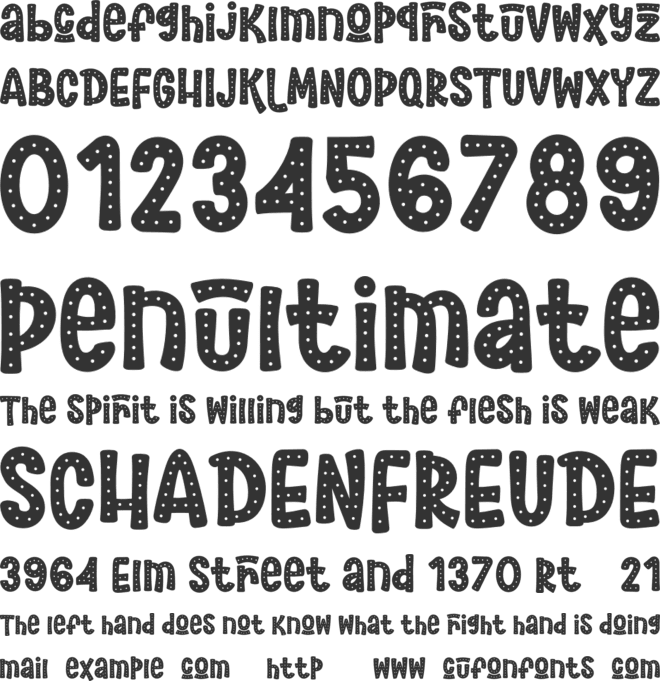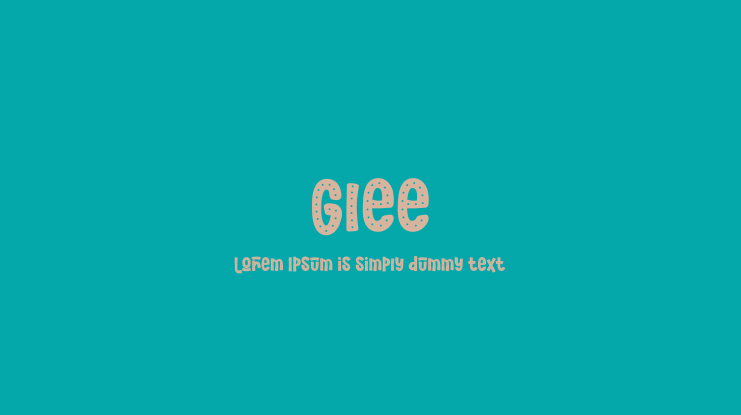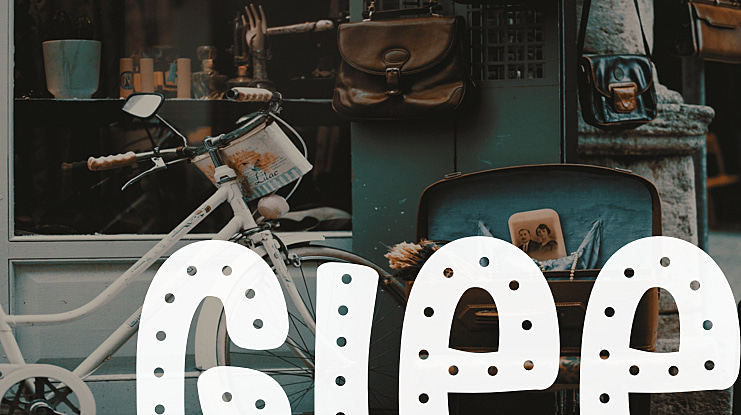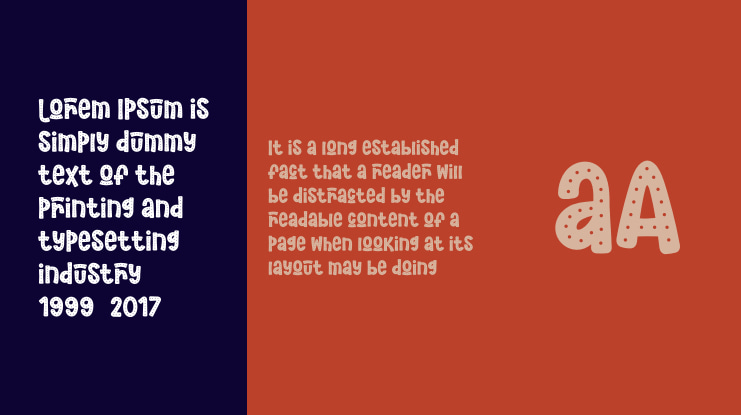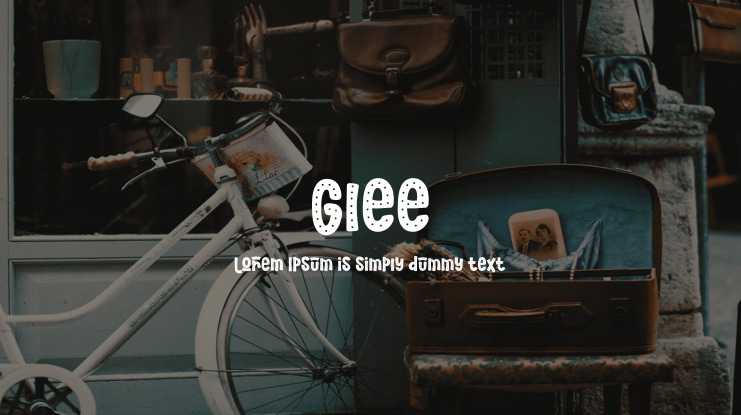
Glee Font
Add some excitement to your holiday projects with Glee, a contemporary and enjoyable Christmas font that’s ideal for sleigh rides, caroling, and other festive activities! Be imaginative and infuse your designs with some seasonal joy! The best part? You can download this fantastic font for free!
- 5 Styles (Dancer, Comet, Cupid, Donner, Rudolph)
- Basic Latin A-Z and a-z
- Numerals & Punctuation
- Stylistic Ligatures and Alternate Glyphs
- Multilingual Support for ä ö ü Ä Ö Ü …